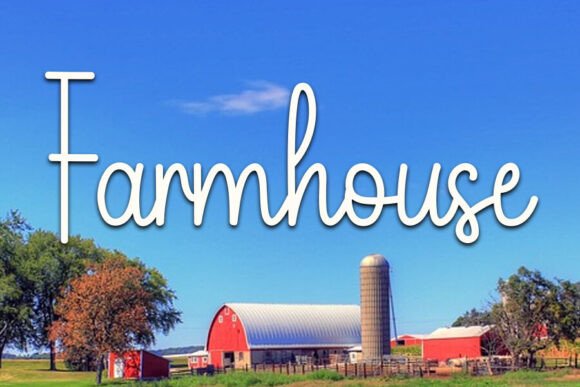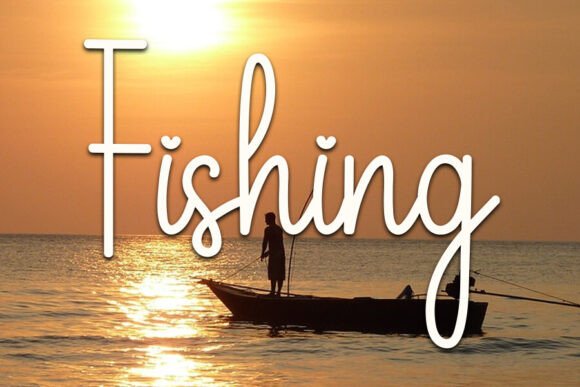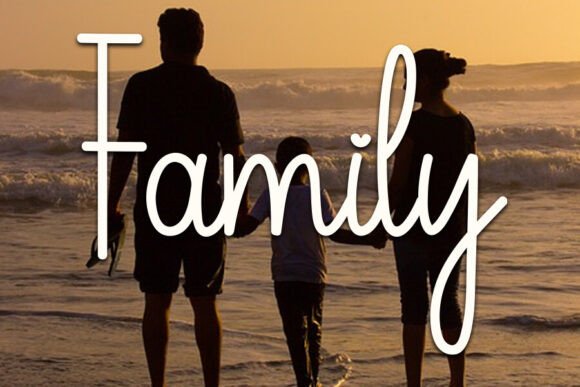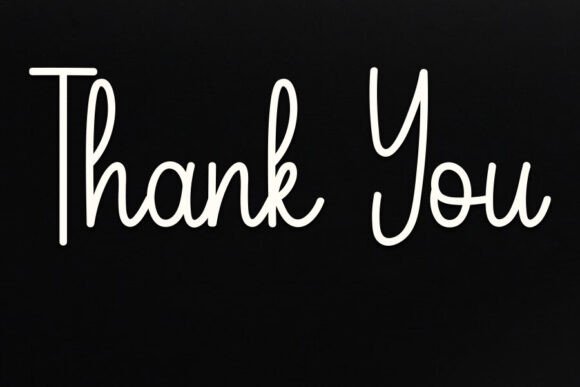
Introducing Beach Font: The Perfect Handwritten Font for Your Creative Projects
Are you looking for a font that can add a touch of simplicity and natural beauty to your designs? Look no further than Beach Font! This stunning handwritten font is perfect for a wide range of applications, from greeting cards to headlines, and is sure to elevate your next project to new heights.
What is Beach Font?
Beach Font is a simple yet elegant handwritten font that is designed to bring a sense of calmness and serenity to your designs. With its clean lines and effortless flow, this font is perfect for creating a relaxed and natural feel that will resonate with your audience.
Key Features of Beach Font
- Versatile: Beach Font is incredibly versatile and can be used for a wide range of applications, from greeting cards to headlines, posters, and more.
- Handwritten: This font has a beautiful handwritten feel that adds a personal touch to your designs.
- Simple: Despite its elegance, Beach Font is a simple font that is easy to read and understand.
- Natural: The font has a natural flow that makes it perfect for designs that require a organic feel.
Why Choose Beach Font?
There are many reasons why Beach Font is an excellent choice for your next project. Here are just a few:
- Easy to Read: Beach Font is incredibly easy to read, making it perfect for designs that require a clear and concise message.
- Highly Legible: The font is highly legible, even at small sizes, making it perfect for use in a variety of applications.
- Unique: Beach Font has a unique and distinctive feel that sets it apart from other fonts.
- Timeless: The font has a timeless quality that ensures it will remain stylish and relevant for years to come.
How to Use Beach Font
Beach Font is incredibly easy to use and can be incorporated into your designs in a variety of ways. Here are a few ideas to get you started:
- Greeting Cards: Use Beach Font to create beautiful and heartfelt greeting cards for special occasions.
- Headlines: Add a touch of elegance to your headlines with Beach Font.
- Posters: Use Beach Font to create stunning posters that showcase your message in a clear and concise way.
- Digital Designs: Beach Font is perfect for use in digital designs, such as social media graphics, blog posts, and more.
Tips for Pairing Beach Font with Other Fonts
Beach Font can be paired with a variety of other fonts to create a unique and stylish look. Here are a few tips to keep in mind:
- Pair with Sans-Serif Fonts: Beach Font pairs beautifully with sans-serif fonts, such as Arial or Helvetica.
- Pair with Script Fonts: For a more elegant look, pair Beach Font with a script font, such as Pacifico or Great Vibes.
- Experiment with Font Sizes: Don’t be afraid to experiment with different font sizes to create visual interest and hierarchy.
In conclusion, Beach Font is a stunning handwritten font that is perfect for designers and crafters looking to add a touch of simplicity and natural beauty to their designs. With its versatility, elegance, and timeless quality, Beach Font is sure to become a staple in your font collection. So why wait? Download Beach Font today and start creating beautiful designs that will leave a lasting impression on your audience!
Whether you’re a seasoned designer or a crafty DIY enthusiast, Beach Font is the perfect choice for your next project. So go ahead, get creative, and see the amazing things you can do with Beach Font!